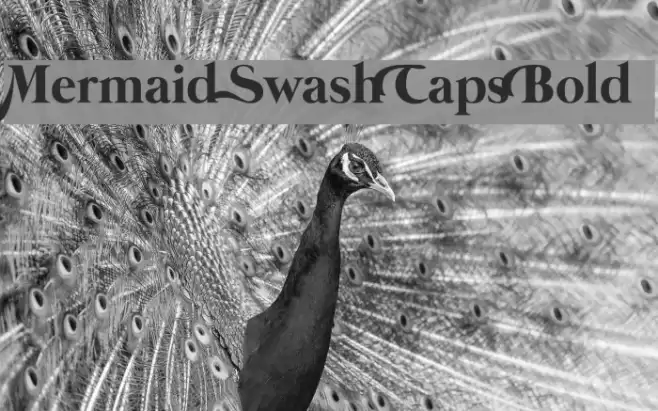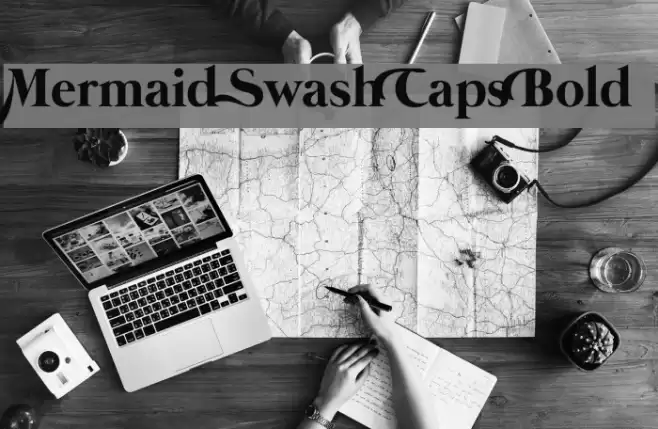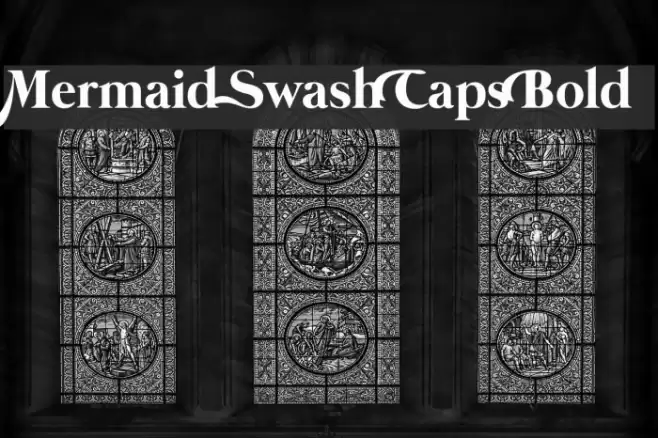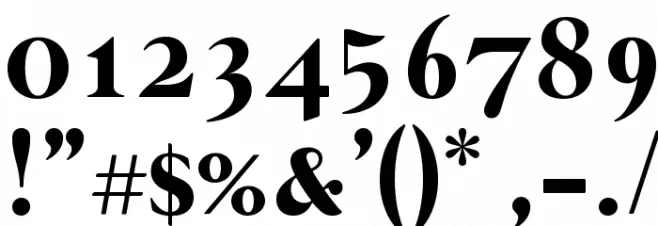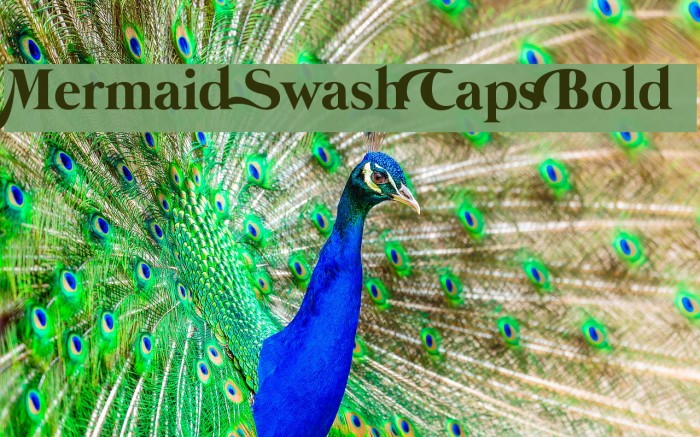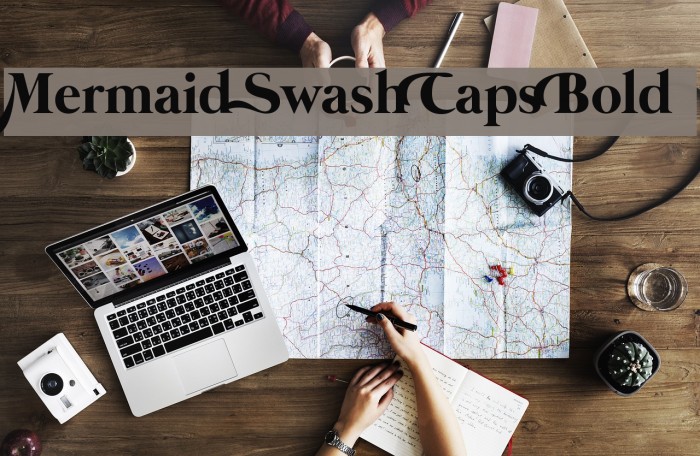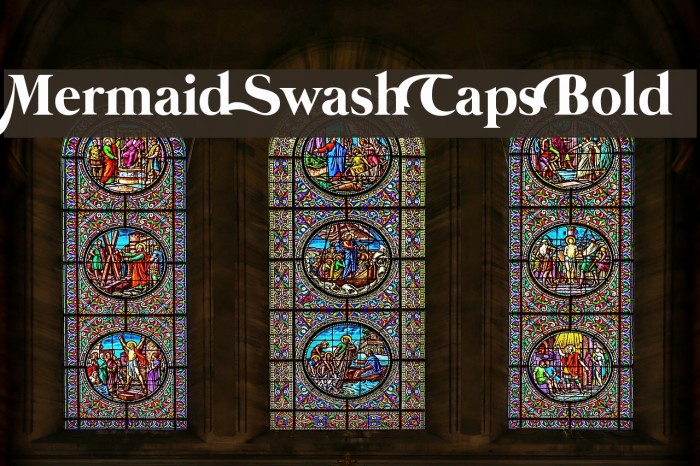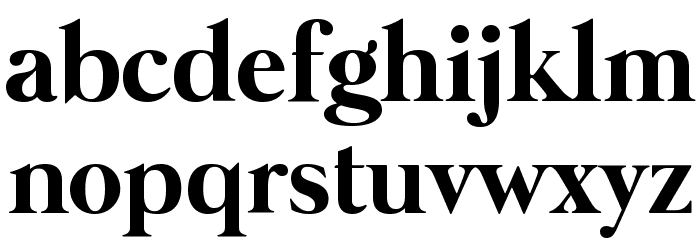
Mermaid Swash Caps Bold Font
Mermaid Swash Caps Bold Description
This font features a bold and dramatic style with ornate swashes and flourishes that give it a distinct and elegant appearance. The uppercase letters are particularly elaborate, with sweeping curves and extended serifs that create a sense of movement and sophistication. The lowercase letters maintain a more traditional serif structure, providing a nice contrast to the decorative capitals. The numerals are bold and clear, ensuring readability while maintaining the overall aesthetic. Special characters are designed with the same attention to detail, making this font suitable for a variety of creative applications.
A bold, swash-filled serif font with ornate capitals and elegant styling from Serif fonts.
- Proposed Projects: Ideal for wedding invitations, luxury branding, book covers, and decorative posters.
- Use Case: Logos, Headlines, Decorative text